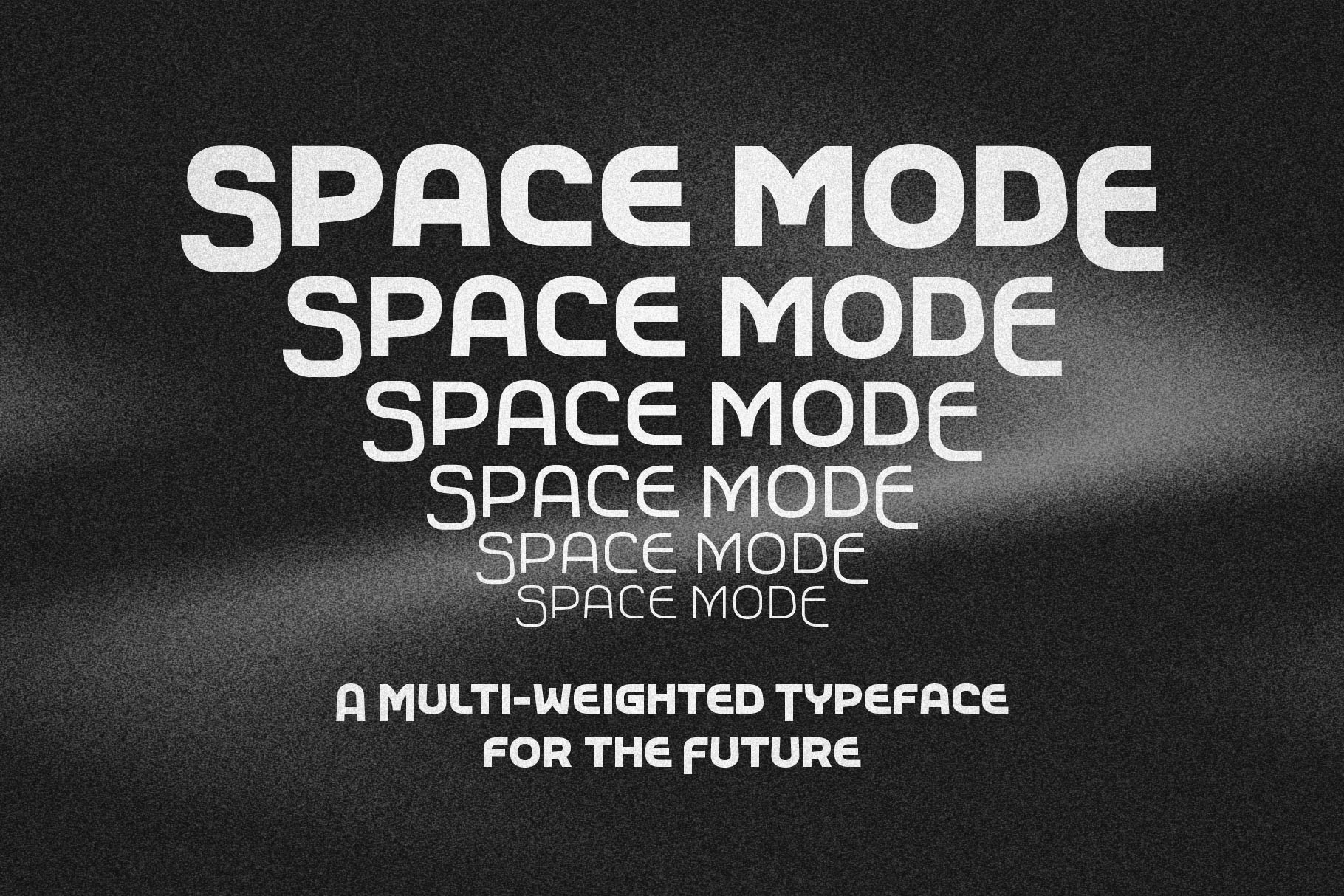
Space Mode typeface
Space Mode is a multi-weighted typeface, sent back in time from the distant future.
Forward-looking typeface designers often predict a reductive future where Latin letterforms have become increasingly modularized and simplified, or random bits have mysteriously gone missing. Thankfully, this is not the case, and typography has instead flourished and evolved. New forms have appeared, and some revived from historical references. A more complex drawing model has arisen that seems to add new curves in a effort to tame the strange diagonals that appear in the final quarter of the alphabet.
Character set
- Latin alphabet [A–Z, a–z]
- Proportional lining figures [0–9]
- Punctuation and symbols
- Accented characters and additional letters for Western European language support